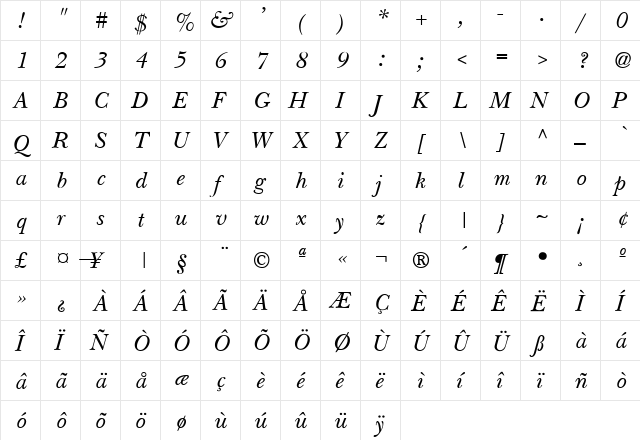
Bobson Italic Regular
Design Context for Bobson Italic Typeface
Bobson Italic is a composed and adaptable typeface that performs quietly and consistently across a wide range of design contexts. The slanted form adds forward momentum and visual energy.
Pro Tip: Try Bobson Italic for annotation and caption copy alongside an upright companion — the contrast in angle creates a dynamic but ordered typographic system.